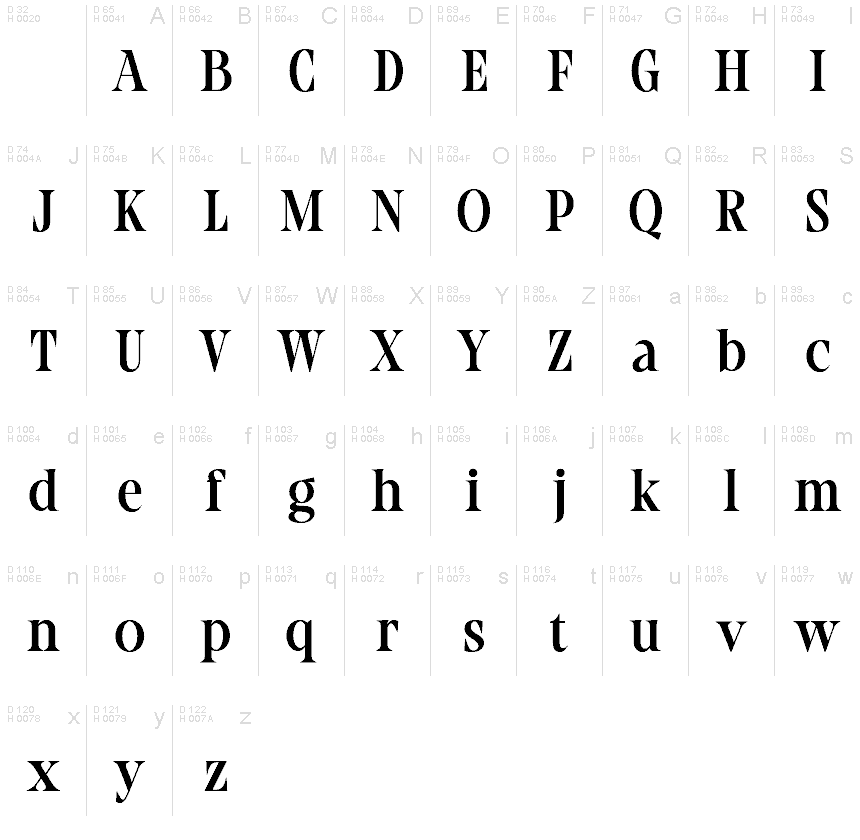
CS Ariela Regular Demo
CS Ariela font by Craft Supply Co. is a classic serif font made with elements of elegance and sophistication. With precise curves, timeless charm, and superior design quality; this typeface comes as a masterpiece that leaves an impression on anyone who experiences it.
Its suitable use cases include posters, product packaging, website/blog designs, promotion banners, invitation cards (especially wedding), book covers/titles/fonts pairing projects etc.